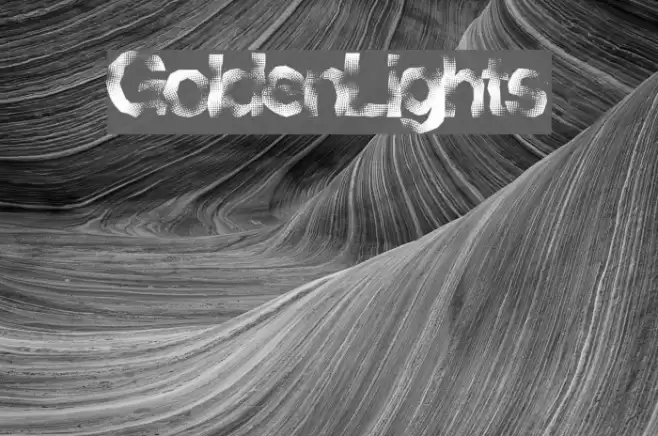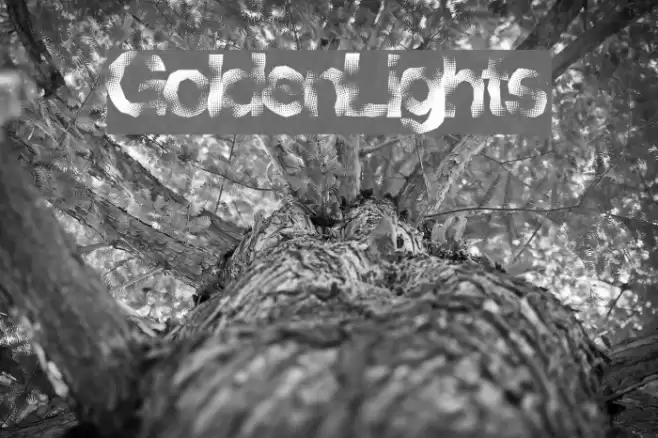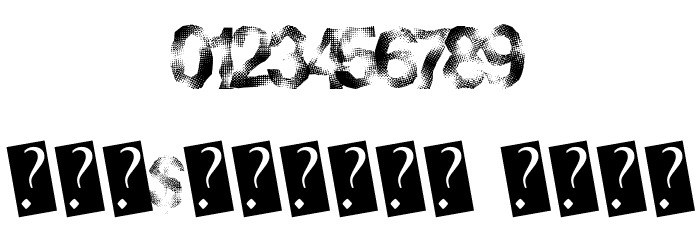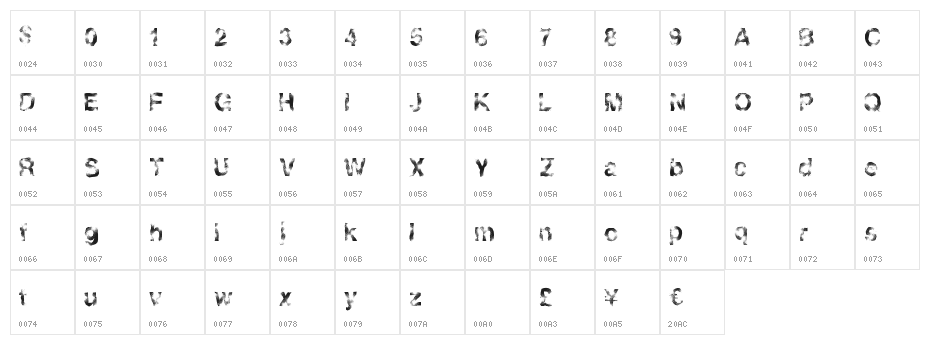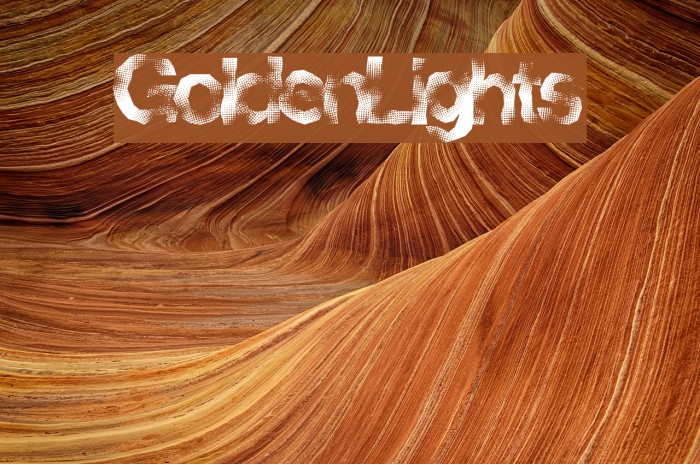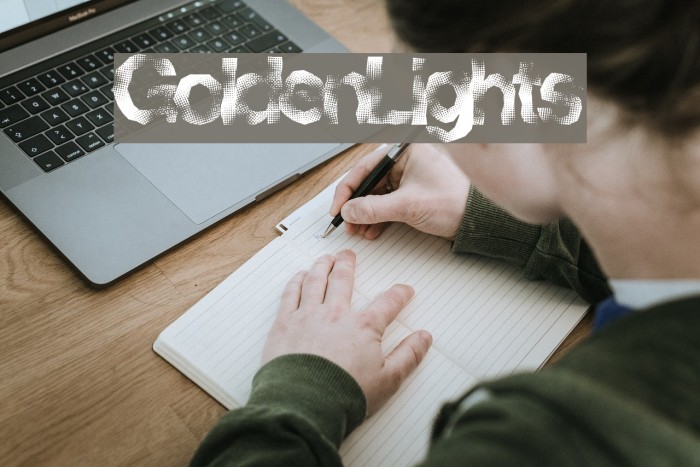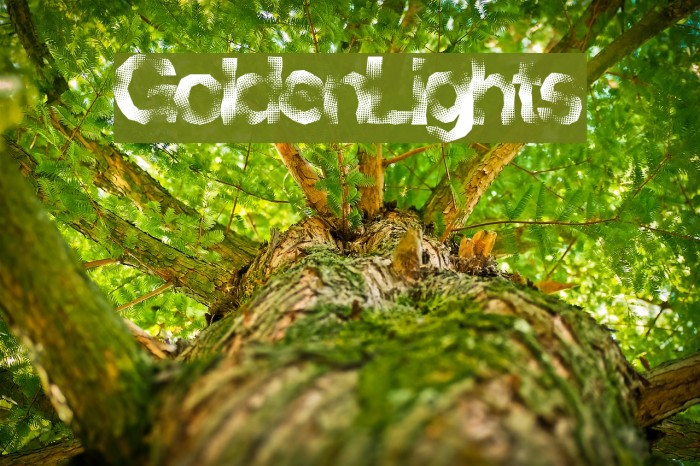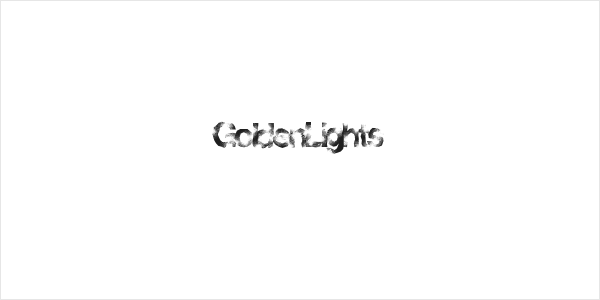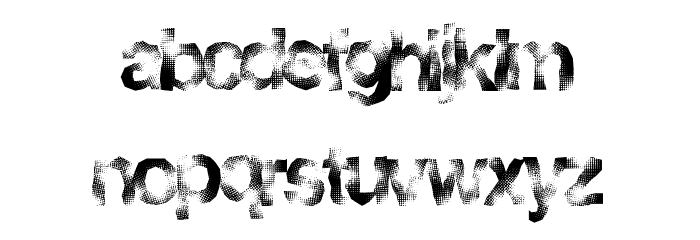
GoldenLights Font
GoldenLights Description
This font features a unique, textured appearance with a halftone effect that creates a sense of movement and dynamism. The characters are bold and slightly condensed, giving them a strong presence on the page. The uppercase and lowercase letters maintain a consistent style, while the numbers and special characters follow suit with the same textured pattern. The overall design is modern and artistic, making it suitable for creative projects that require a distinctive and eye-catching typeface.
A bold, textured font with a halftone effect, ideal for creative projects from Distorted Eroded fonts.
- Proposed Projects: This font is perfect for posters, album covers, artistic branding, and any project that aims to stand out with a modern, edgy look.
- Overall Style: Modern, Artistic
- Use Case: Headlines, Posters, Branding